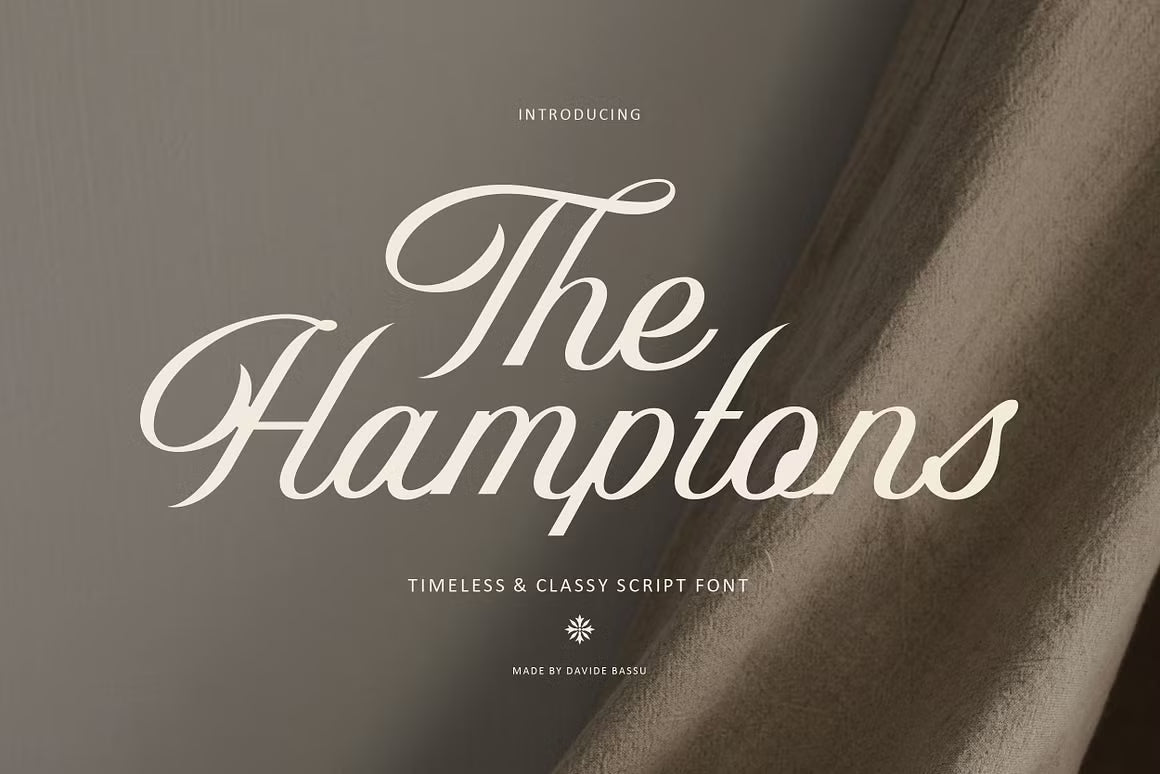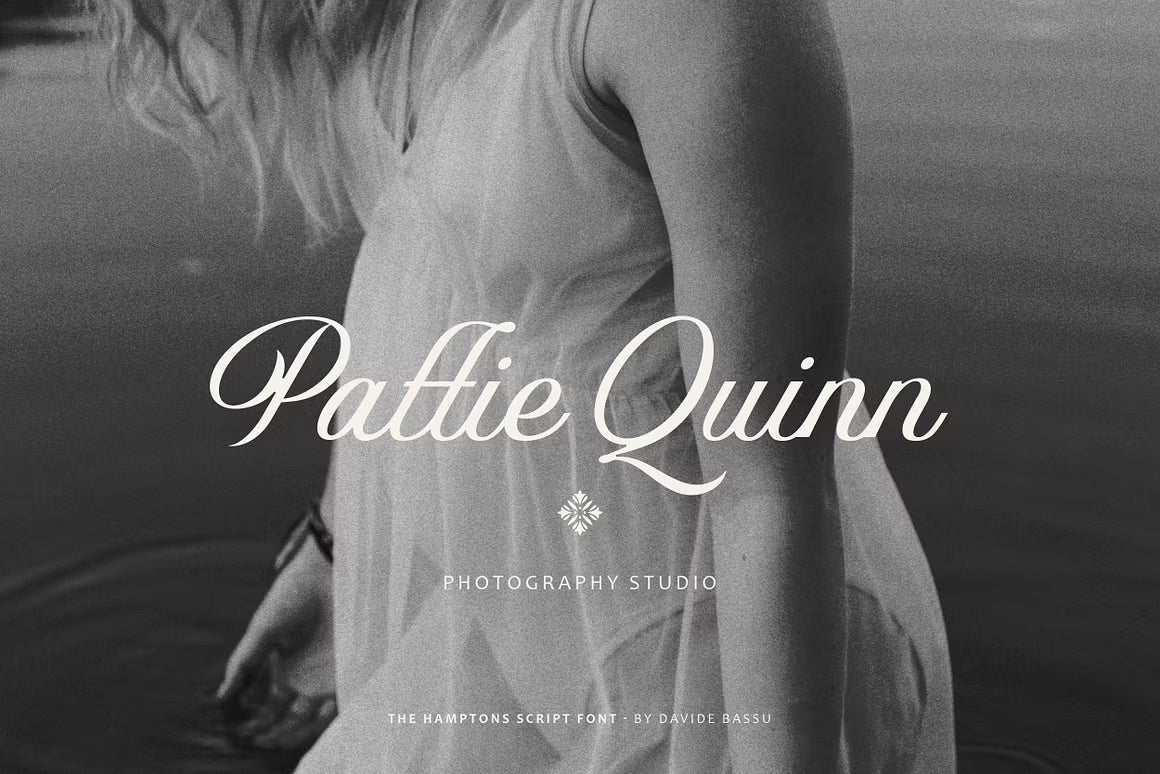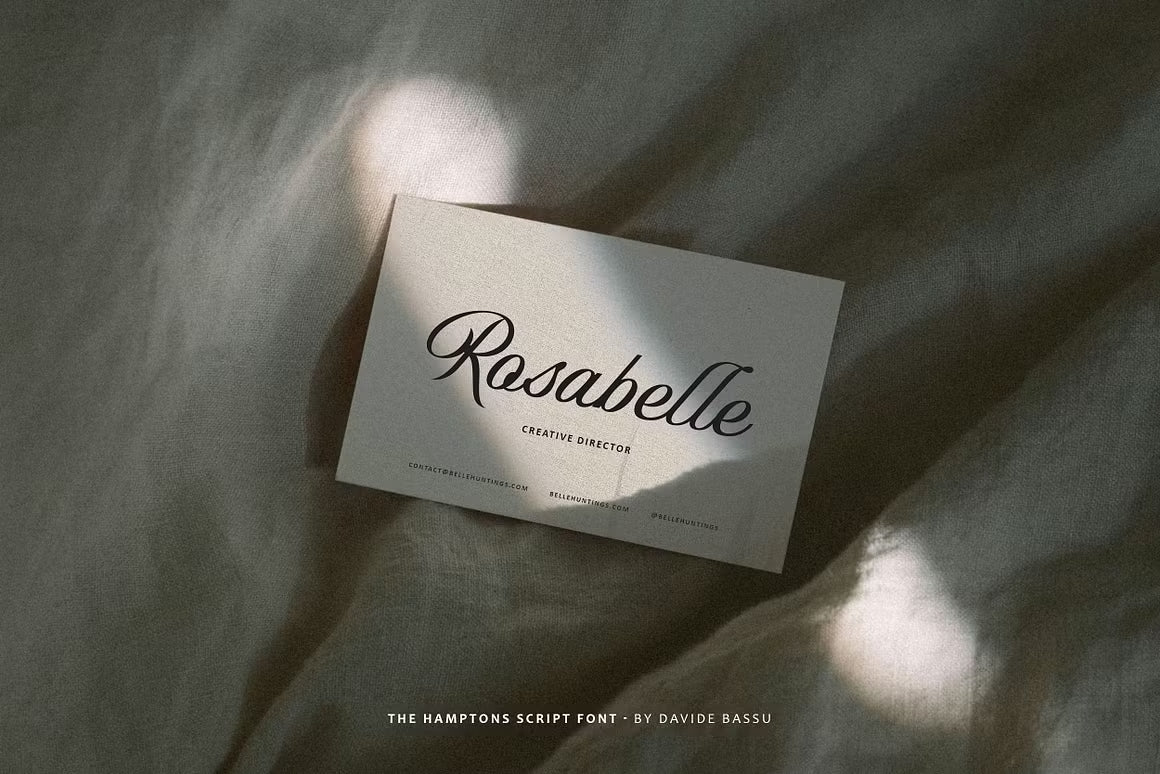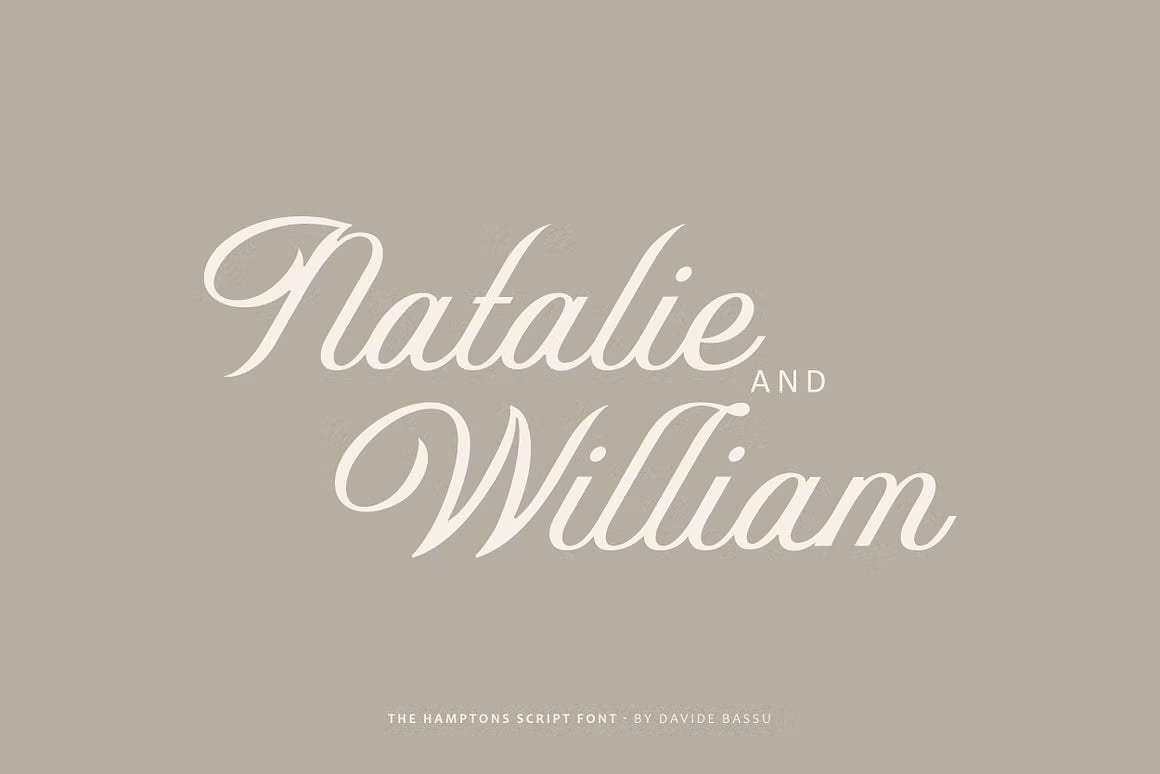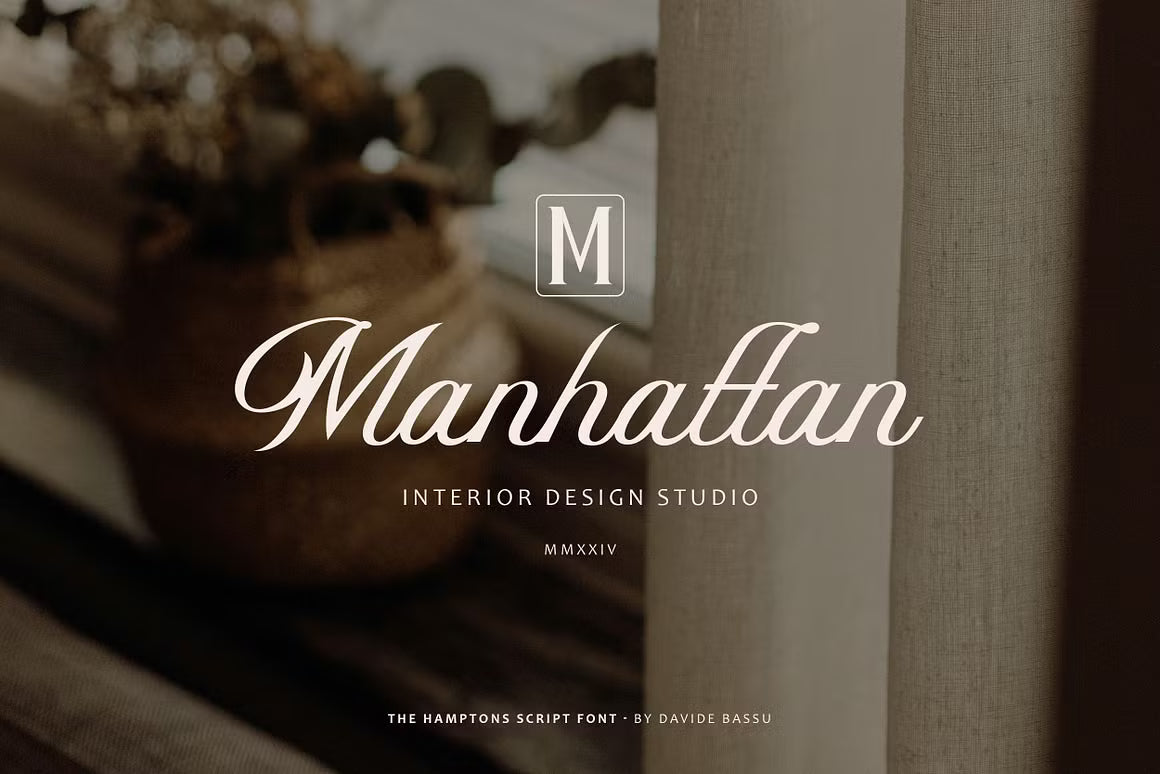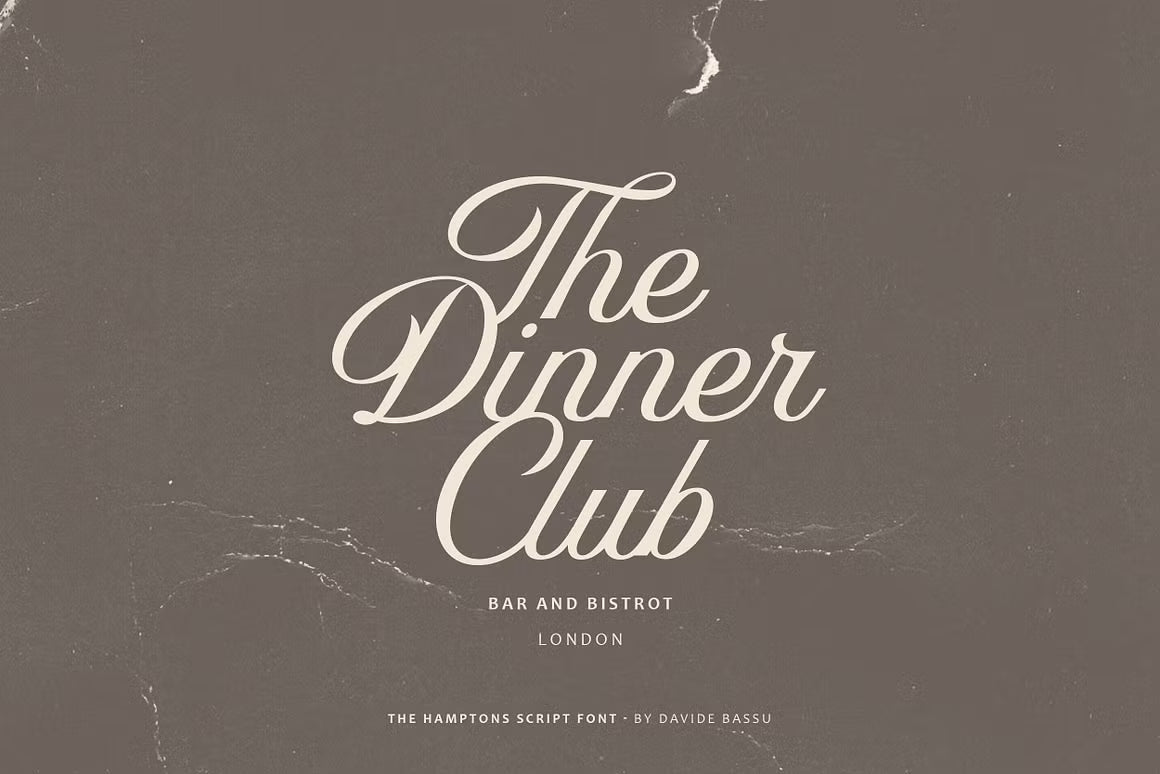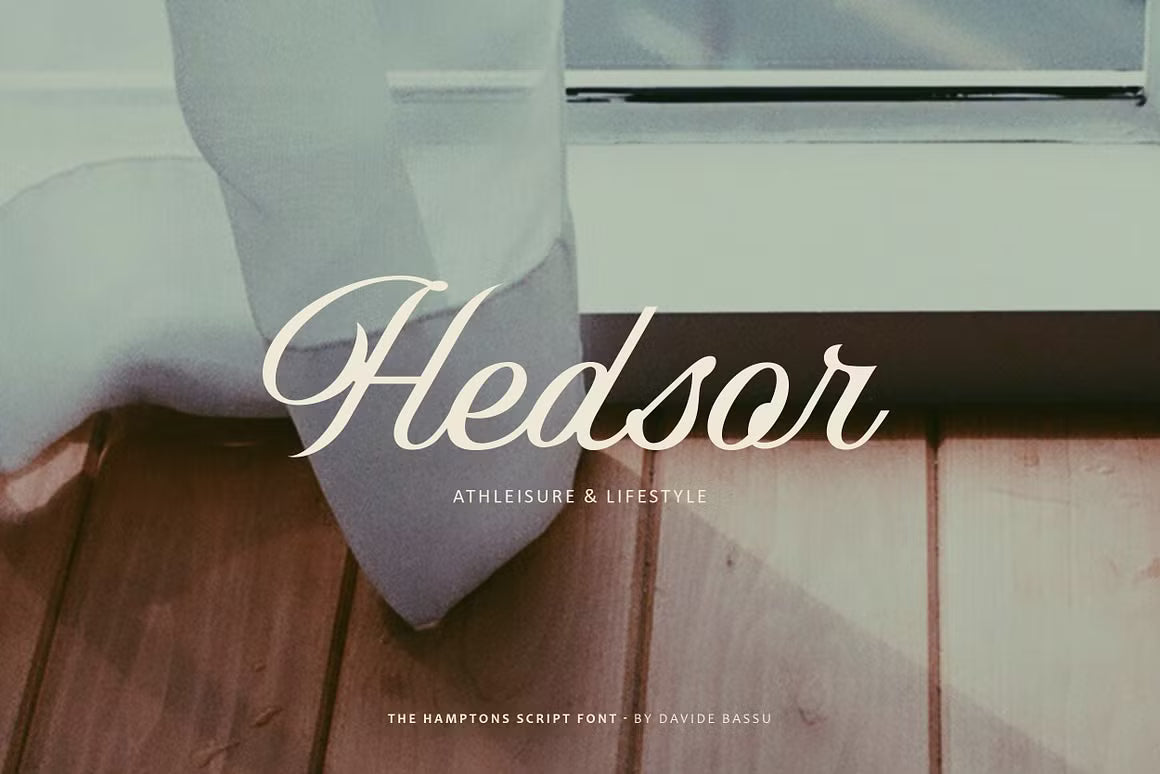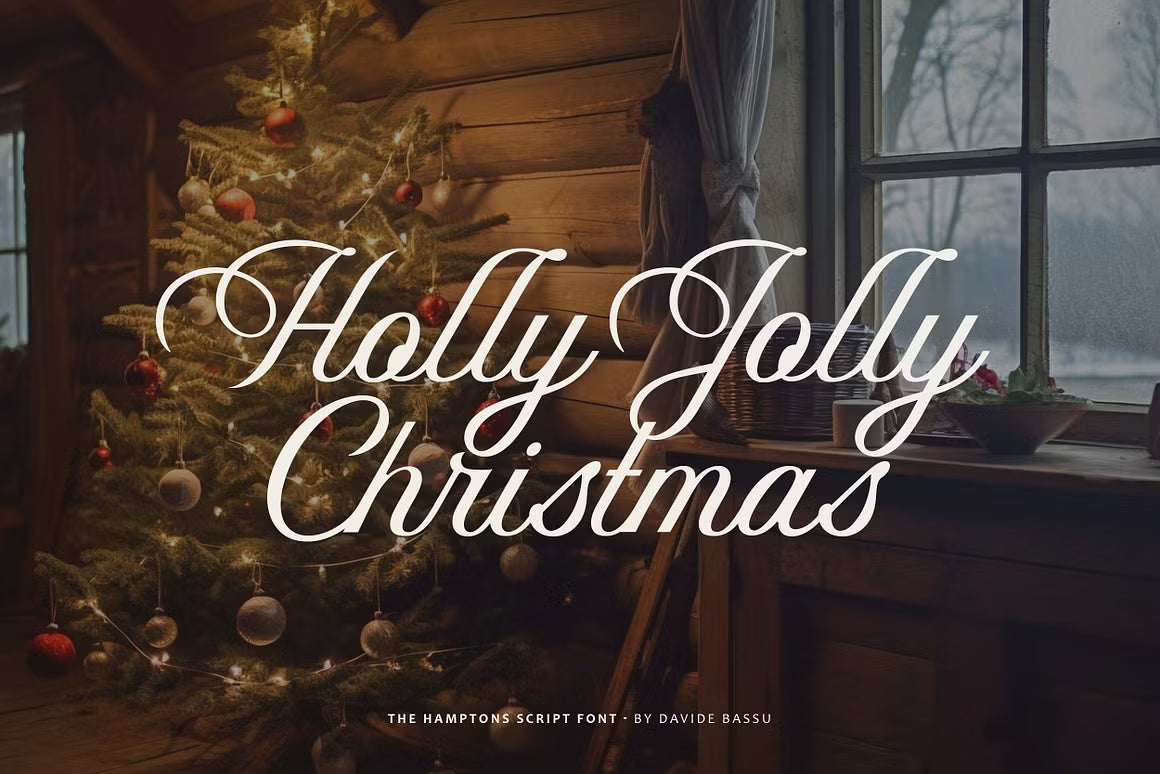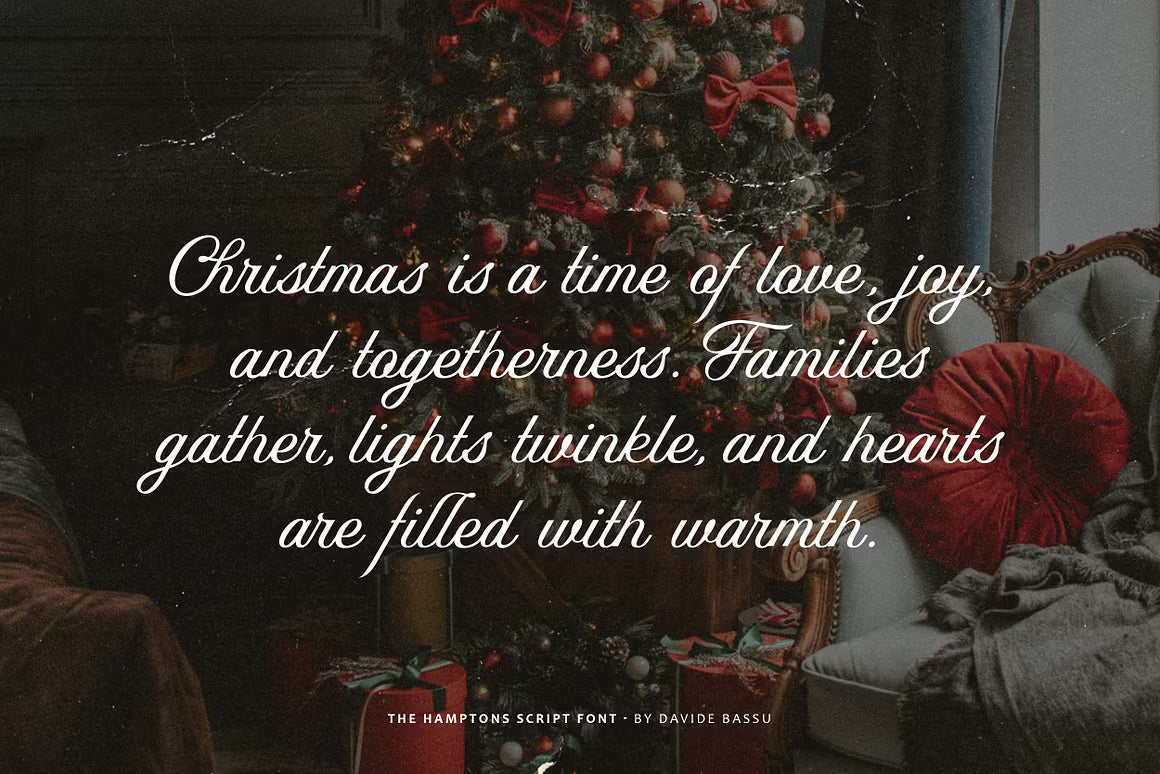
The Hamptons
The Hamptons Script brings effortless elegance and coastal sophistication to your designs. This refined handwritten script feels like a breezy summer day in the Hamptons — graceful, timeless, and full of quiet luxury.
With rich stylistic alternates and beautiful ligatures, it shines in high-end branding, wedding invitations, product labels, fashion lookbooks, and anything that calls for a touch of class and personality. The flowing forms give your words a natural, handwritten warmth while maintaining excellent readability.
A go-to script for projects that need to feel polished yet personal.
The Hamptons Script font